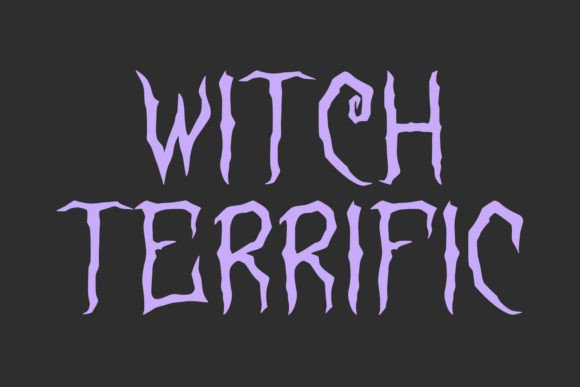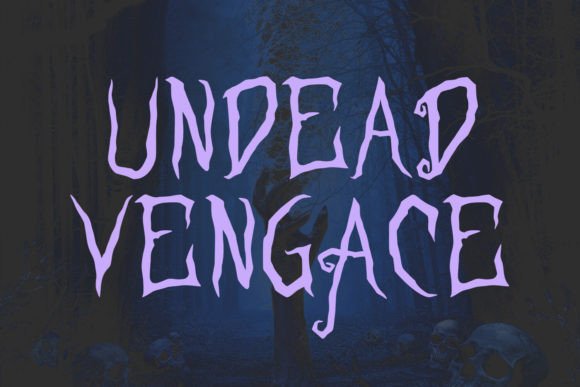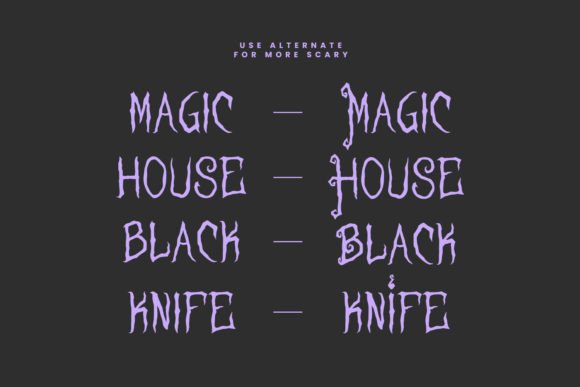
Introduction to Magiuzz Font
Magiuzz is a fun and magical display font.
It has a playful and whimsical look, perfect for adding a touch of magic to your projects The letters are bold and eye-catching, making it great for headlines, posters, and invitations.
Why Choose Magiuzz Font?